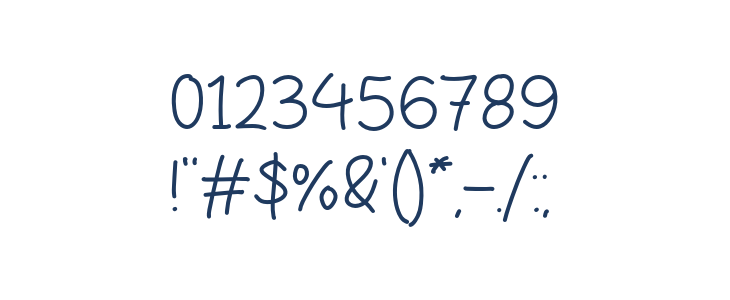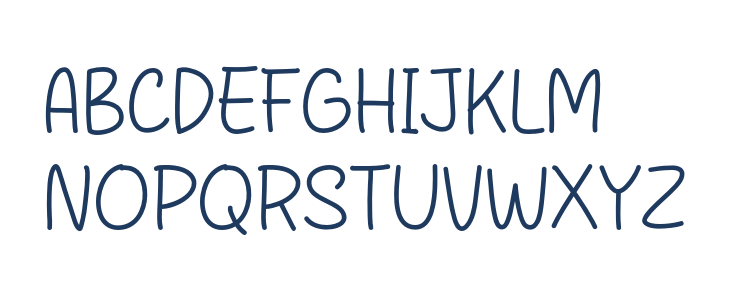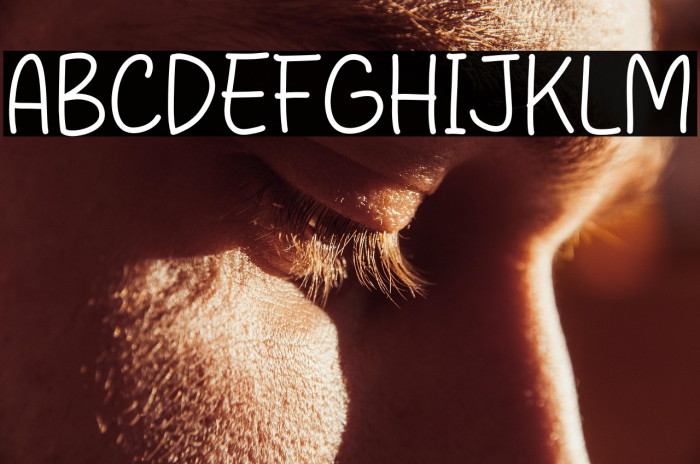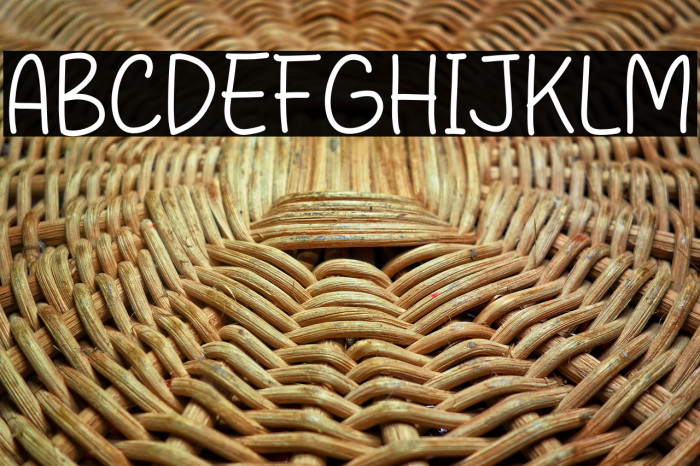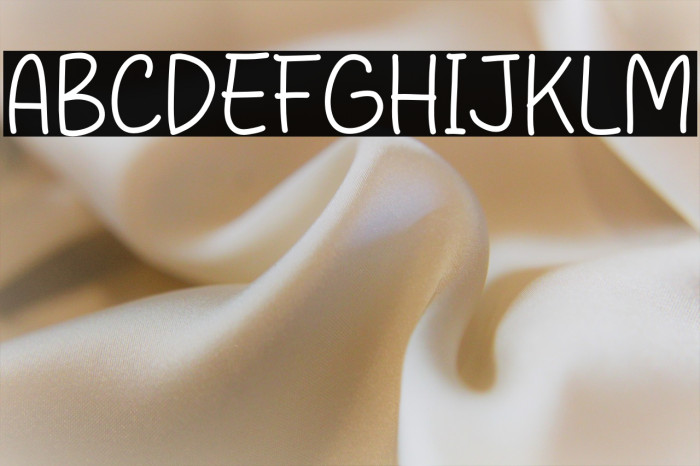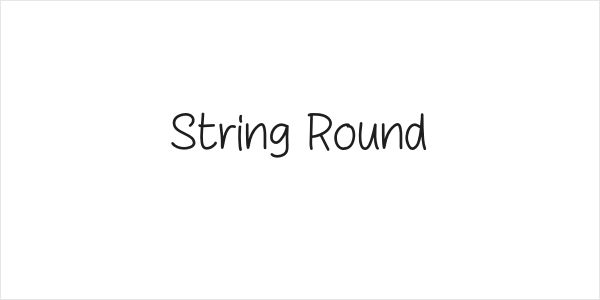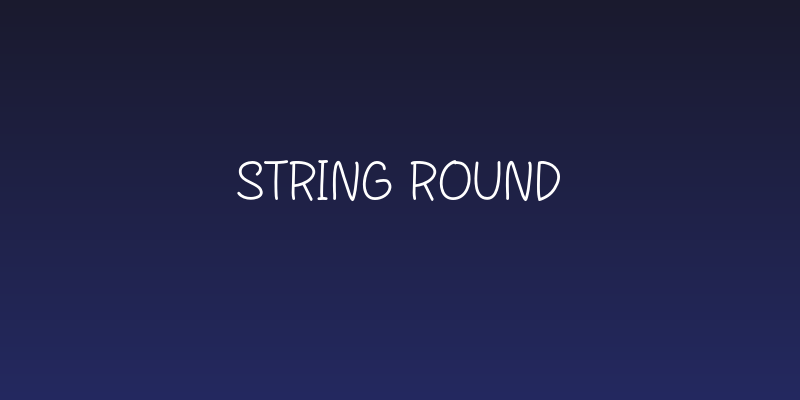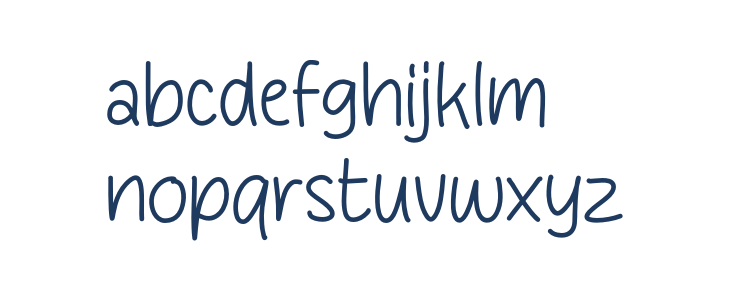
String Round Font
String Round Description
A playful, rounded sans-serif font with a handwritten appearance, featuring consistent stroke width and open, friendly letterforms. The characters are slightly condensed with generous spacing, giving a casual and approachable feel.
| Overall Style | Casual, Playful, Modern |
| Use Case | Headlines, Short body text, Informal branding, Educational content |
| Proposed Projects | ChildrenΓ’β¬β’s books, educational materials, greeting cards, informal branding, friendly UI elements. |